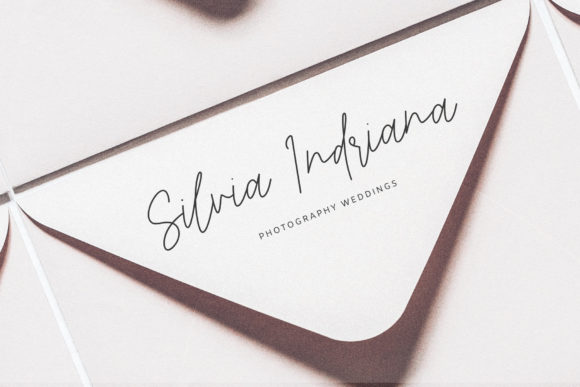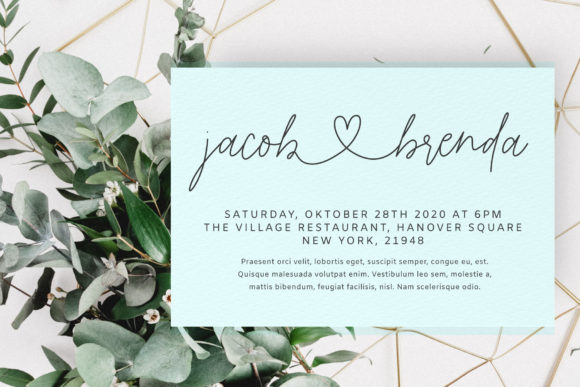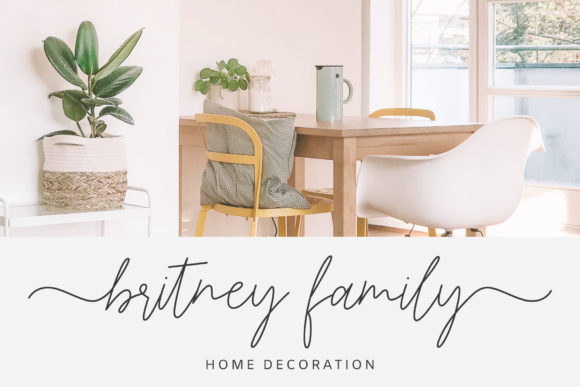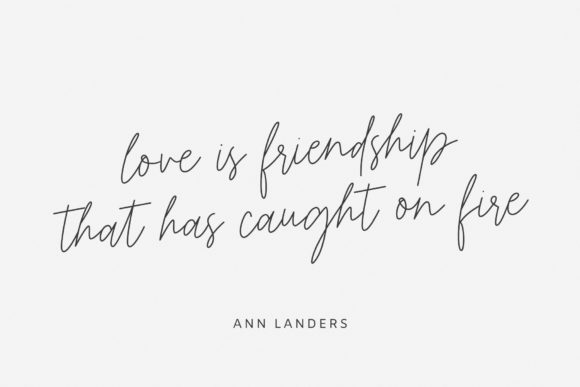
About Jack and Kate Font
Jack and Kate is a beautiful and light handwritten font with a unique feel and a stunning impact. It will add a luxury spark to any design project that you wish to create! This font is PUA encoded which means you can access all of the amazing glyphs and ligatures with ease!